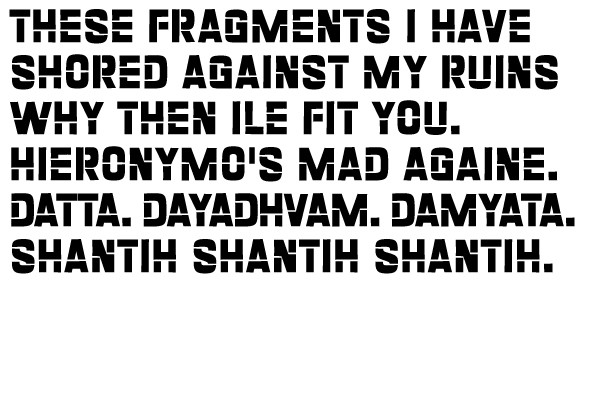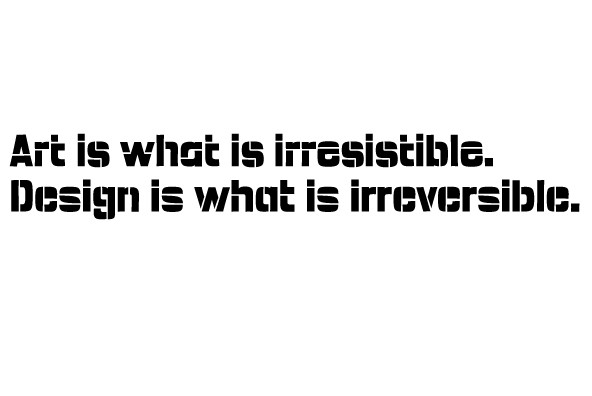
Inmate is a casual stencil font with the essence of Eurostile black. It comes with 2 styles. Inmate One is a more traditional style stencil, but Inmate Two is the look of future of space military styling.